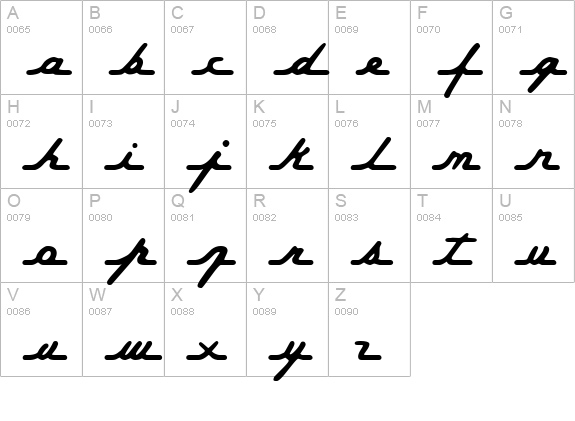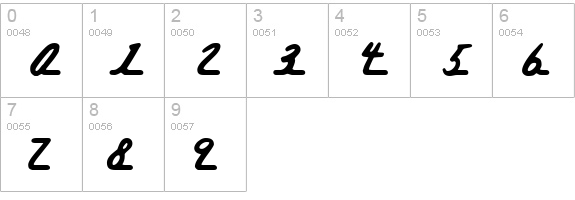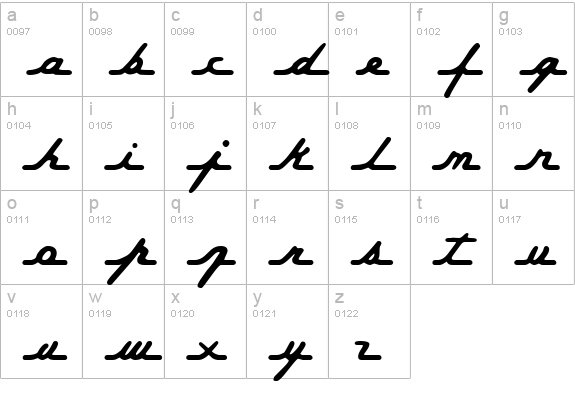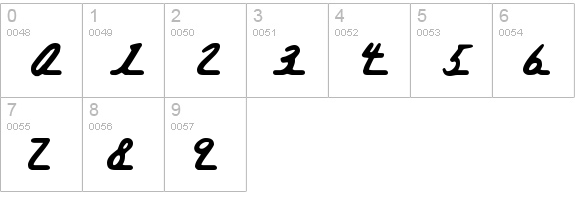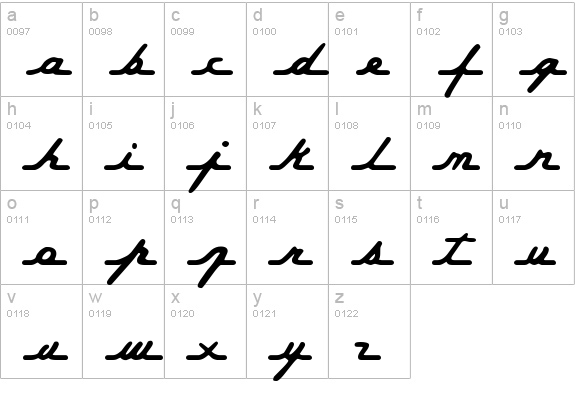
Permanent Waves Font Details
Introducing Permanent Waves, a breathtaking font that effortlessly captures the essence of fluidity and movement. With its delicate curves and graceful strokes, this mesmerizing typeface is sure to make a lasting impression on any design project. Permanent Waves is a true work of art, meticulously crafted to convey a sense of perpetual motion and seamless continuity. Its sleek and modern aesthetic is perfect for contemporary designs, while its timeless appeal ensures its versatility across various applications. This font's versatility is further enhanced by its wide range of weights and styles, allowing you to explore endless creative possibilities. Whether you're designing a logo, website, or print materials, Permanent Waves will elevate your work to new heights. One of the most remarkable aspects of Permanent Waves is its accessibility. With its availability as a free download at FontsMarket.com, this font allows designers of all budgets and backgrounds to enjoy its beauty and functionality. Now, you can effortlessly add a touch of elegance and sophistication to your projects without breaking the bank. Download Permanent Waves today from FontsMarket.com and unlock the power of this extraordinary font. With its seamless lines, captivating presence, and free availability, Permanent Waves is a must-have for any designer looking to make a statement. Embrace the flow and embrace the beauty of Permanent Waves.